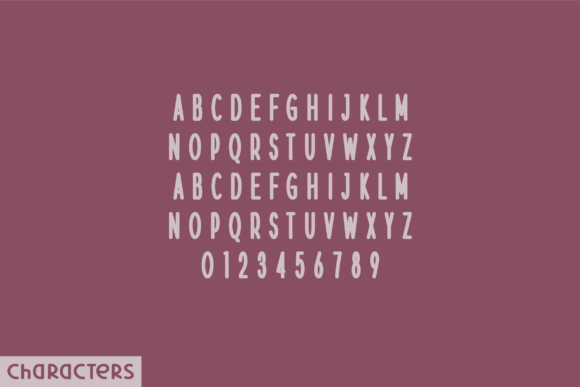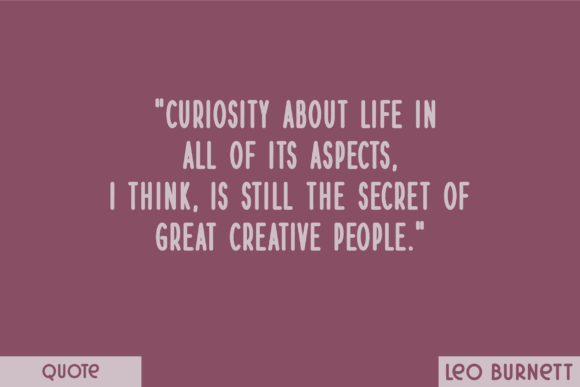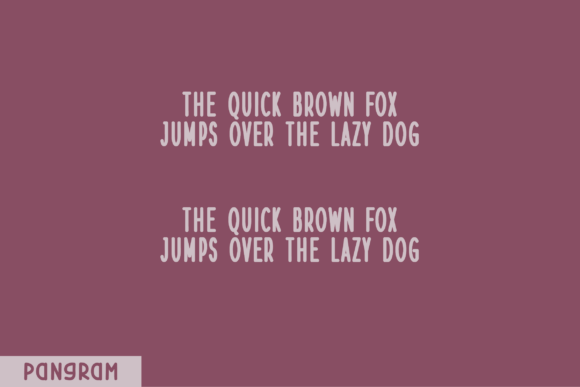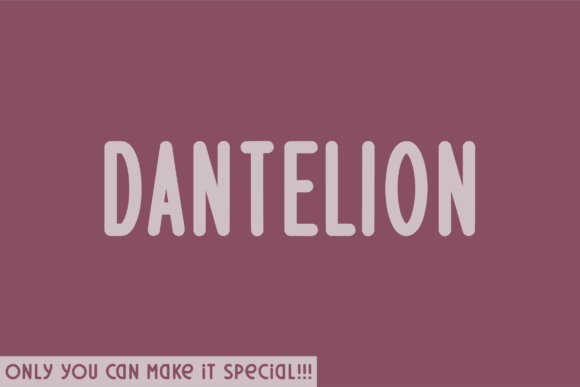
Introduction to Dantelion Font
Dantelion is a natural handwritten font without changing a single node in each character’s indentation, this makes this font very interesting and unique.
Perfect for quotes, notes, tees, and any product design I really hope you enjoy it – please do let me know what you think, comments & likes are always hugely welcomed and appreciated.
Key Features of Dantelion Font